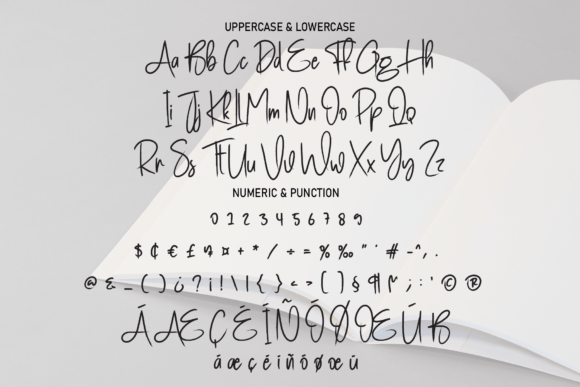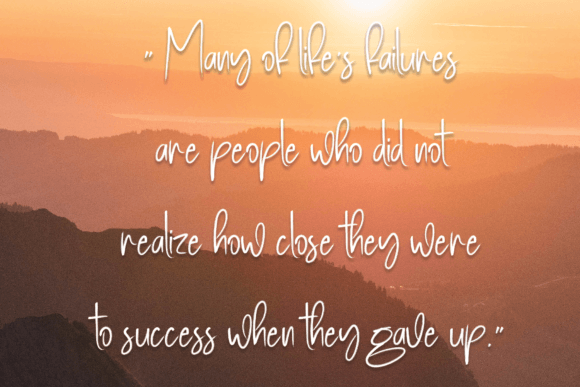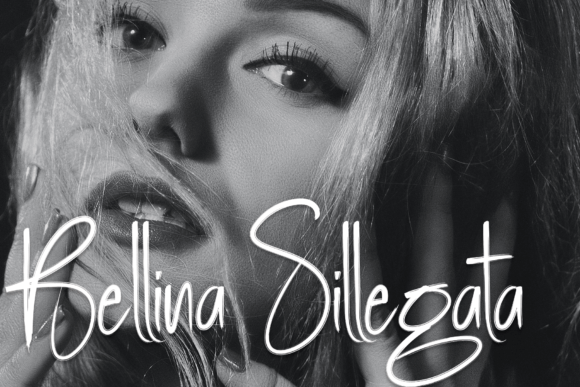
The Delight of Handwritten Letters: Unveiling the Book Signature Font
Remember the thrill of receiving a handwritten letter in the mail, adorned with beautiful cursive script? It’s a feeling that never gets old, and for designers, it’s a treasure trove of inspiration. The Book Signature Font is a delicate, elegant, and flowing handwritten font that captures the essence of this timeless charm. This versatile font is designed to add a touch of sophistication and personality to various designs, making it a valuable asset for creatives.
With its well-balanced characters and beautiful curves, the Book Signature Font is an ideal choice for designers seeking to create unique and eye-catching visuals. Whether you’re working on a branding project, a wedding invitation, or a packaging design, this font is sure to elevate your work and leave a lasting impression on your audience.
Key Features of Book Signature Font
- Unique Characteristics: The Book Signature Font features a distinctive, elegant design with subtle flair and flourishes, making it ideal for formal and literary applications.
Book Signature Font Review
As a designer, I’ve had the chance to work with various fonts, and the Book Signature Font is one that stands out for its unique character. ✨ One of the things I appreciate about this font is its elegance and sophistication, making it perfect for creating a luxurious and high-end feel in any design project.
Another advantage of this font is its versatility. ✨ It can be used for both personal and professional purposes, and its sleek lines and classic design make it suitable for a wide range of applications, from wedding invitations to business reports.
- ⚠️ The font may not be ideal for body text, as it can be quite dense and may be difficult to read in large quantities.
- ⚠️ It also lacks bold and italic variations, which can limit its use in certain situations.
- ⚠️ Additionally, the font may not be compatible with all operating systems and devices, which can cause display issues.
Overall, I think the Book Signature Font is a great choice for designers who want to add a touch of elegance and sophistication to their work. While it may have some limitations, its unique character and versatility make it a valuable addition to any design toolkit.
Book Signature Font is ideal for creating elegant and sophisticated text, making it perfect for:
- Book covers and title pages
Remember to experiment with different font sizes, colors, and alignments to get the most out of Book Signature Font.